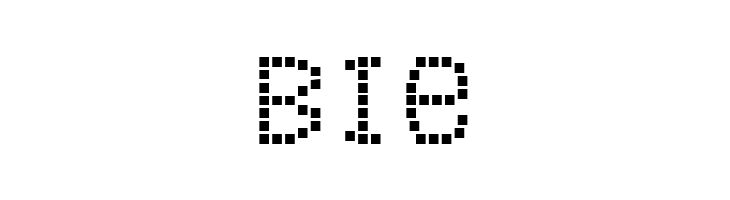
A playful, rounded font with bold, smooth curves and a friendly appearance.
A bold, playful font with exaggerated, irregular shapes and a dynamic feel.
A bold, angular font with a modern, edgy style.
A whimsical, heart-adorned font with a playful and romantic style.
A bold, decorative font with characters enclosed in circular badges, reminiscent of vintage typewriter keys.
A bold, angular font with a futuristic, mechanical design.
A sleek, modern font with geometric and minimalist design.
A bold, textured font with a distressed, grunge appearance.
A playful, bold font with a whimsical and cartoonish design.
A bold, edgy font with a hand-drawn, graffiti-like appearance.
A bold, angular font with a dynamic skew and geometric design.
A bold, graffiti-inspired font with dynamic, flowing strokes and an urban aesthetic.
A bold, geometric font with sharp angles and tight spacing.
A decorative and playful font with geometric and dot elements.
A futuristic, dotted font with a slanted, digital style.
A bold, geometric font with a futuristic, digital aesthetic.
A bold, hand-drawn font with a playful and dynamic style.
A bold, geometric font with thick strokes and modern design.
A modern, slanted font with a sleek and dynamic design.
A futuristic, geometric font with sharp edges and a sleek, modern design.
A bold, angular font with a dynamic, futuristic style.
A futuristic, geometric font with a bold, interconnected design and three-dimensional effect.
A bold, stencil-style font with sharp edges and uniform thickness.
A bold, playful font with a bubbly, hand-drawn texture.
A bold, decorative font with jagged, leaf-like edges for an organic look.
A whimsical and decorative font with playful curves and charming details.
A futuristic, geometric font with bold, outlined characters and a double-line effect.
A bold, hand-drawn font with a playful and chaotic style.
A bold, brush-style font with dynamic, jagged strokes.
A modern, rounded font with smooth, elongated characters and consistent stroke width.
A bold, modern font with a geometric and dynamic style.